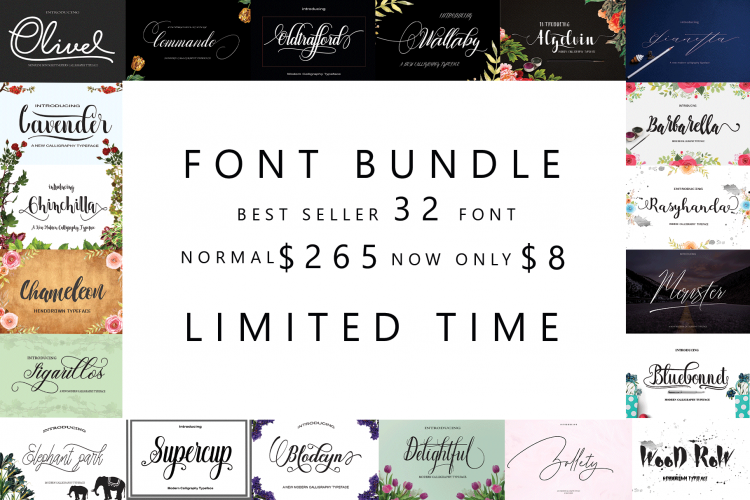
FONT BUNDLES COLECTION
MASSIVE FONT BUNDLE
Best selling FONTS here's your chance to get a large number of best-selling fonts.
This package contains 32 Font Scripts,brush & font regular. Includes some best-selling fonts. Harmony Script, Lavender Script, Barbarella Script, Bluebonnet Script, Chameleon Script, Commando Dll Script & regular, with hundreds of glyphs, including alternates, ligatures, swashes, contextual alternatives and international language support. It can be accessed by using OpenType smart programs like Adobe Illustrator, Adobe InDesign, CorelDraw X6-X7, Microsoft Word.
All fonts is perfect for branding, headings, signatures, logos, blog, wedding invitations, t-shirts, letterhead, merchandise, signage, lable, news, posters, badges etc.